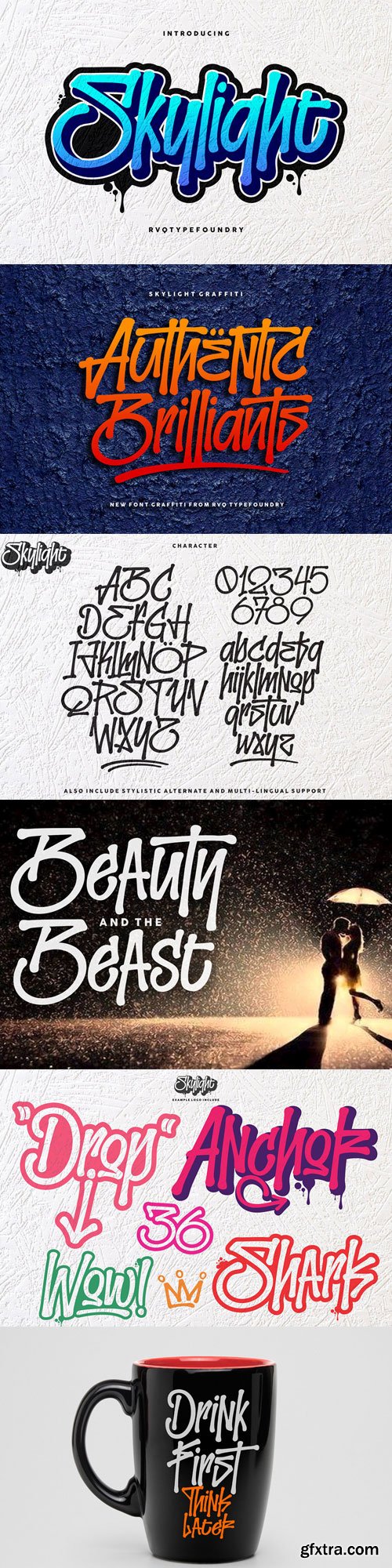
The Skylight Graffiti is new font from Rvq Typefoundry, elegant feel character set. To create the beautiful combination, just mix the uppercase and lowercase then mix with the alternative glyphs.The Skylight Graffitis insfire from graffiti style.